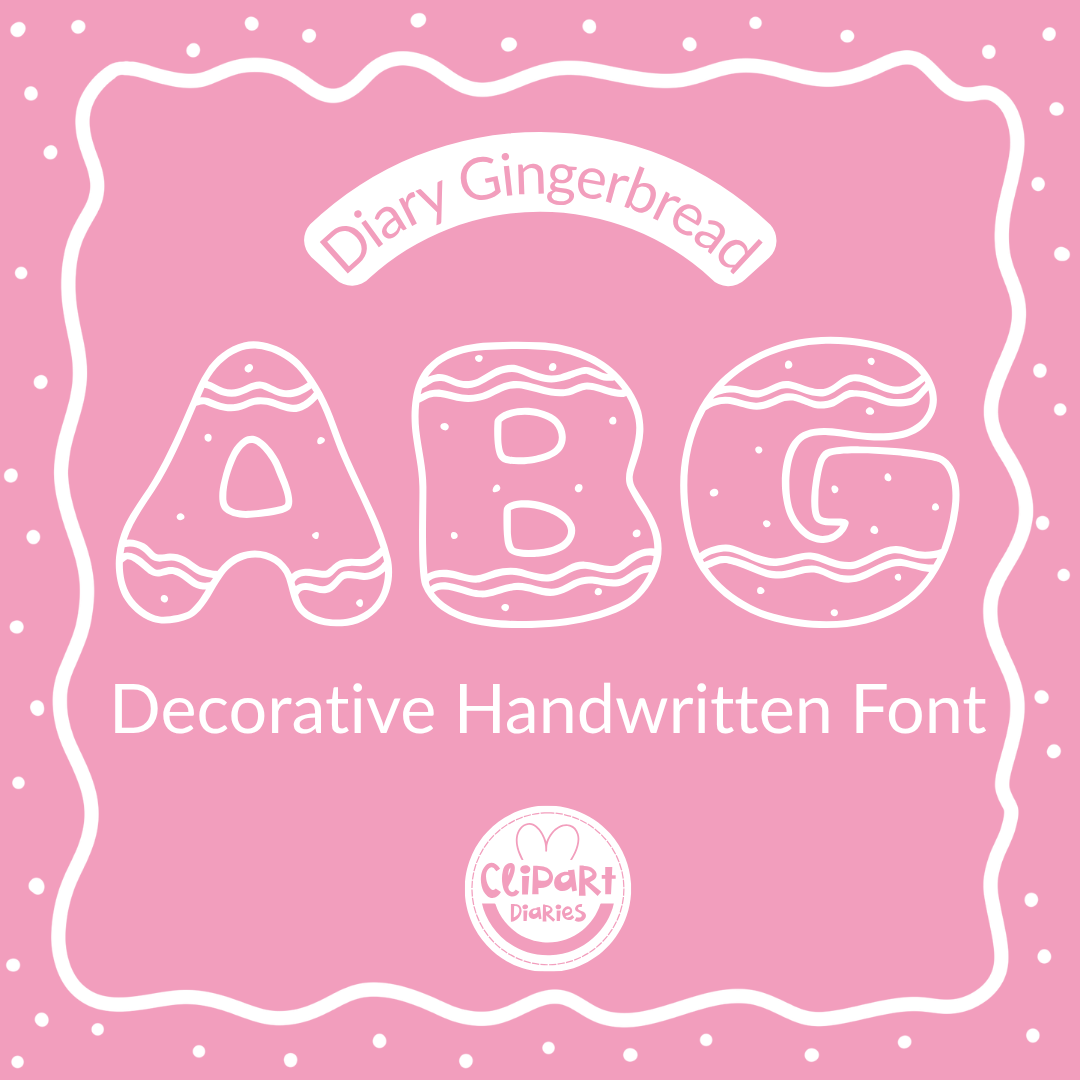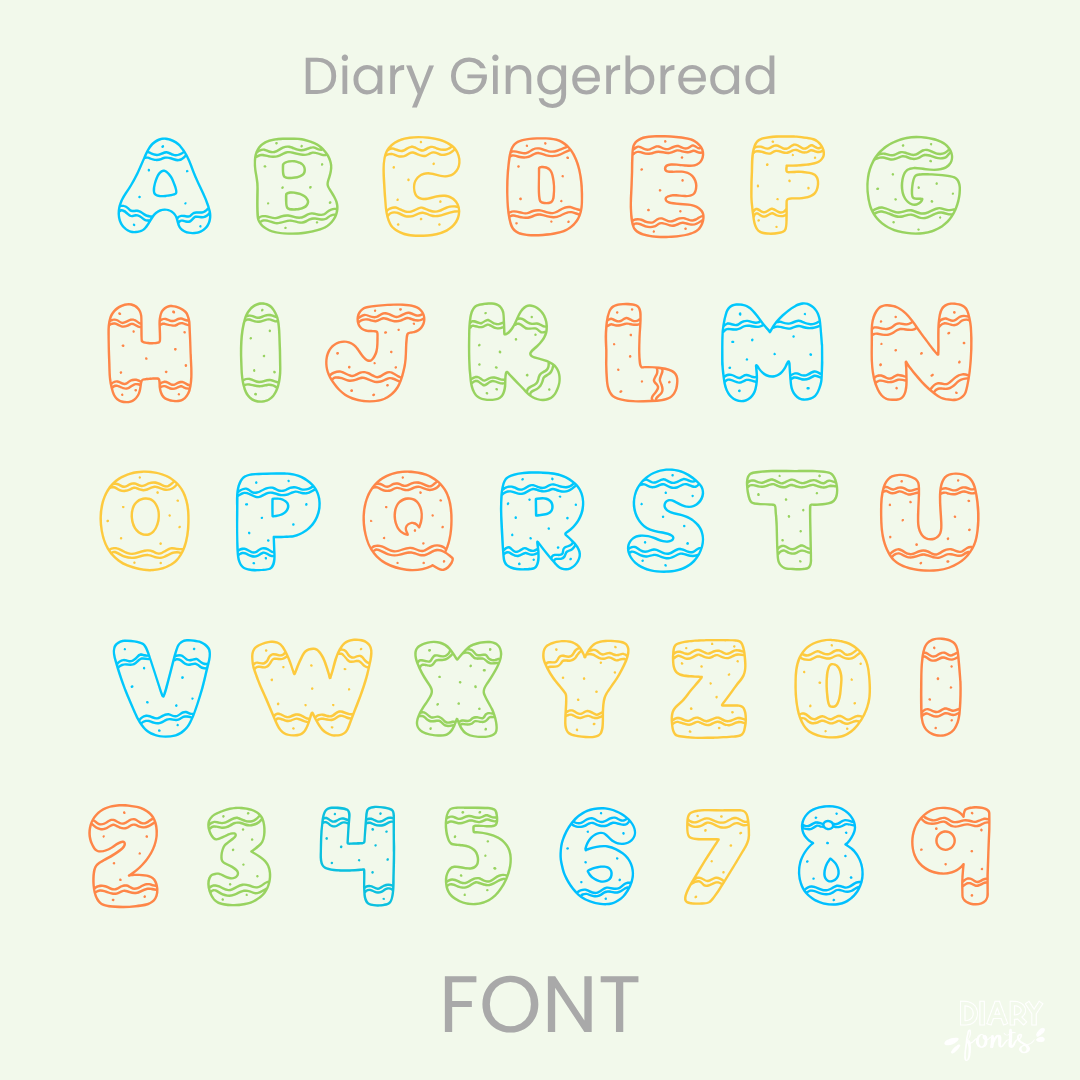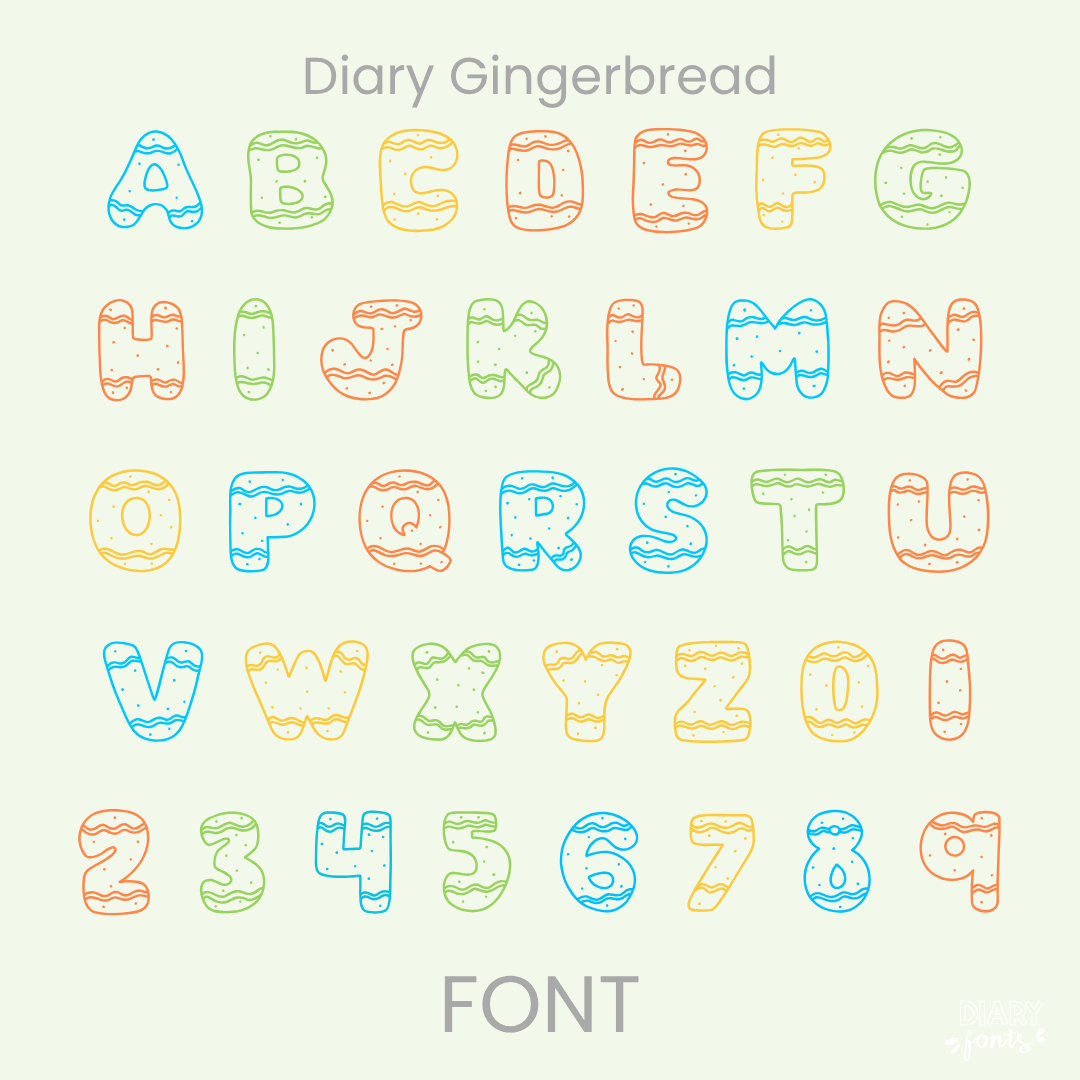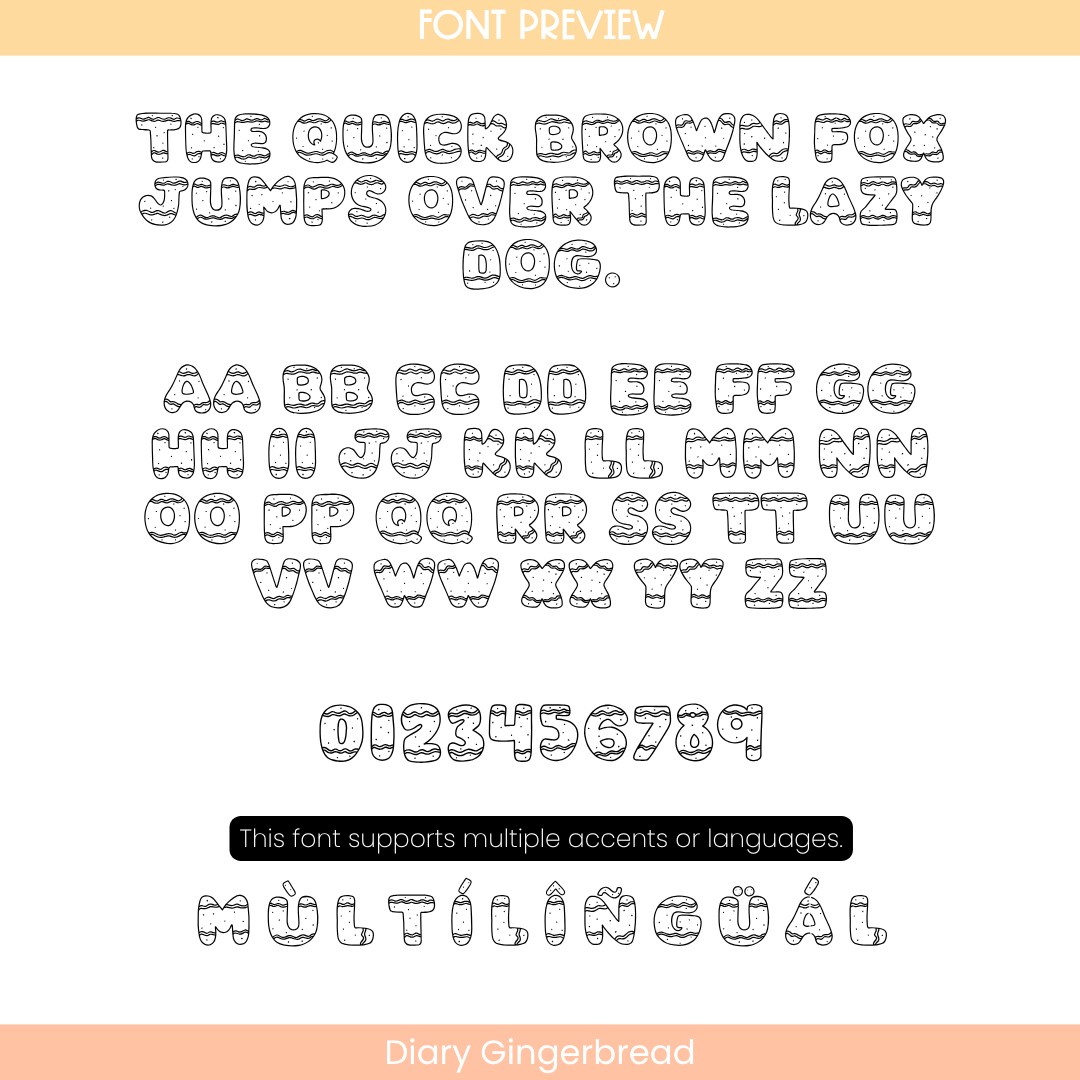
If you want to give your projects a cheerful and festive look, Diary Gingerbread is an excellent choice. It features boxy, all-caps layout letters filled with charming textured details that mimic a delightful, hand-crafted holiday aesthetic. Because both the uppercase and lowercase keys feature prominent all-caps structures, it remains highly legible for students while adding a powerful and playful presence to your page. It is especially effective for seasonal winter headers, classroom event banners, bulletin boards, and eye-catching labels. The font includes a full set of letters, numbers, and multiple accents to support different languages. It is ready for use in Canva, MS Office, and Adobe Apps, and it works perfectly with iPad apps like GoodNotes and Procreate. Whether for personal classroom use or commercial resources, this font adds a warm and approachable aesthetic to your work.